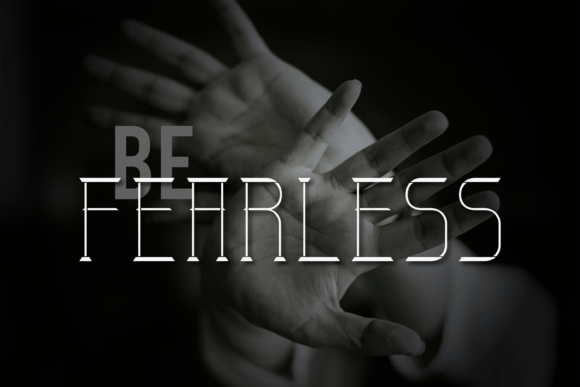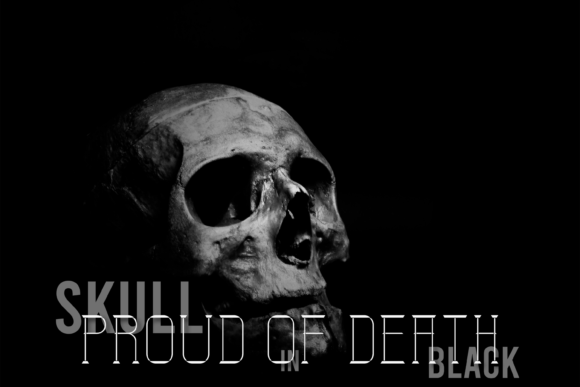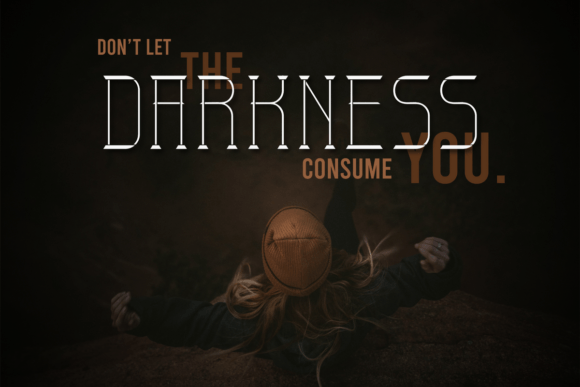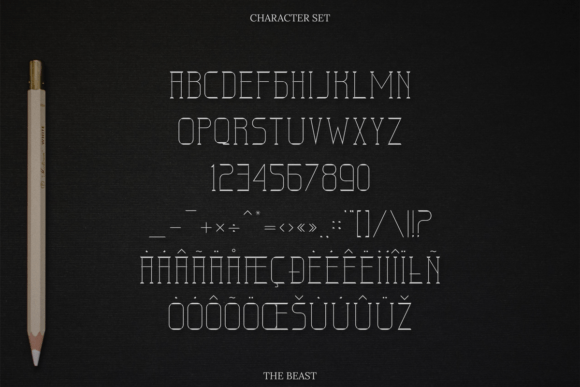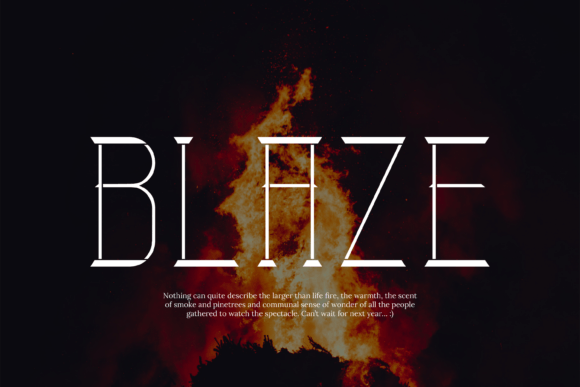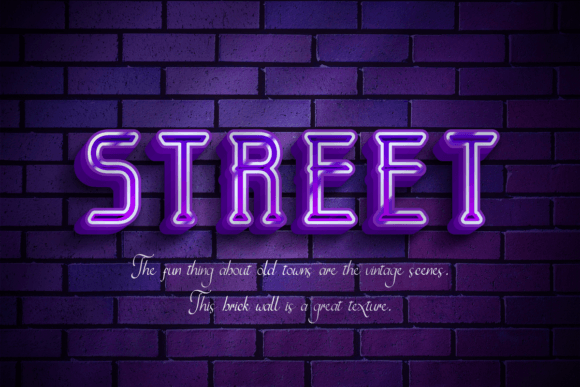
Introducing Beast Font: A Modern Serif Typeface with a Powerful Presence
In the world of typography, a well-designed font can make all the difference in creating a lasting impression. For designers and crafters looking for a typeface that exudes strength, character, and sophistication, look no further than Beast Font. This modern serif font is a game-changer, offering a unique blend of thick and thin shapes that result in a firm, strong, and charismatic presence.
What is Beast Font?
Beast Font is a modern serif typeface that embodies the principles of minimalism while conveying a sense of power and elegance. Its clean and straightforward design makes it an ideal choice for a wide range of applications, including logos, quotes, branding, and more. The font’s unique character is achieved through the thoughtful combination of thick and thin shapes, creating a visually appealing contrast that adds depth and interest to any design.
Key Features of Beast Font
- Modern Serif Design: Beast Font boasts a sleek and contemporary serif design that is perfect for designers looking for a fresh take on traditional typography.
- Minimalist Aesthetic: The font’s minimalist approach ensures that it remains uncluttered and easy to read, making it suitable for a wide range of applications.
- Unique Character: The combination of thick and thin shapes gives Beast Font its distinctive character, setting it apart from other serif fonts.
- Firm and Strong: The font’s bold and confident appearance makes it perfect for designs that require a sense of strength and authority.
Use Cases for Beast Font
Beast Font is an incredibly versatile typeface that can be used in a variety of contexts. Here are a few examples:
- Logo Design: The font’s bold and confident appearance makes it perfect for logos that require a sense of strength and authority.
- Branding: Beast Font is an excellent choice for branding applications, as it can help to create a lasting impression and establish a strong visual identity.
- Quotes and Typography: The font’s elegant and refined design makes it suitable for quotes, typography-focused designs, and other applications where the text is the main focus.
Why Choose Beast Font?
With so many fonts available, it’s essential to choose a typeface that meets your specific needs and design goals. Here are a few reasons why Beast Font stands out:
- Unique Design: Beast Font’s distinctive character sets it apart from other serif fonts, ensuring that your design will stand out.
- High-Quality Typography: The font is designed with precision and attention to detail, resulting in a high-quality typographic experience.
- Versatility: Beast Font is incredibly versatile, making it suitable for a wide range of applications and design contexts.
In conclusion, Beast Font is an exceptional modern serif typeface that offers a unique blend of strength, character, and sophistication. Its minimalist design, combined with its bold and confident appearance, makes it perfect for designers and crafters looking to create a lasting impression. Whether you’re designing a logo, branding materials, or typography-focused designs, Beast Font is an excellent choice. With its versatility, high-quality typography, and distinctive character, this font is sure to become a staple in your design toolkit.